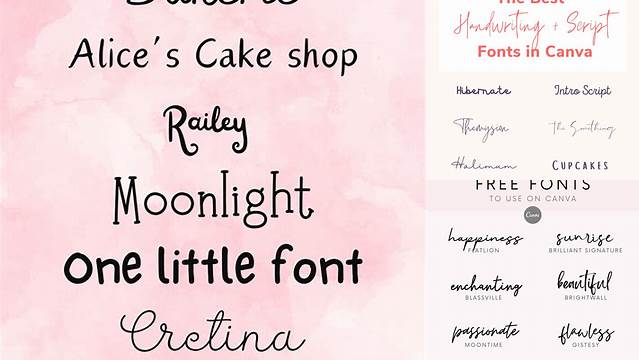
Cute Handwriting Fonts On Canva: A Complete Guide
Hey guys! Ever wanted to add a personal touch to your Canva designs? Using cute handwriting fonts is the way to go! They bring warmth, authenticity, and a dash of fun to any project. Whether you're crafting social media posts, designing invitations, or creating stunning presentations, the right font can make all the difference. In this guide, we're diving deep into the world of cute handwriting fonts on Canva, exploring everything from the best options available to how to effectively use them in your designs. Get ready to transform your creations with these delightful fonts!
1. The Allure of Handwriting Fonts
Handwriting fonts have this amazing ability to make things feel more personal and relatable. Unlike standard, formal fonts, they mimic the natural flow and imperfections of human handwriting. This gives your designs a unique charm that can really grab people's attention. When you use cute handwriting fonts, you're not just adding text; you're adding character and emotion. This is why they're perfect for projects where you want to connect with your audience on a more intimate level. Think about greeting cards, heartfelt notes, or even branding materials that aim to convey warmth and approachability. The right handwriting font can turn a simple message into something truly special. Plus, in a digital world dominated by sleek, uniform designs, a touch of handwritten style can help you stand out from the crowd. So, if you're looking to inject some personality into your Canva projects, exploring the world of handwriting fonts is definitely the way to go!
2. Top 5 Cute Handwriting Fonts on Canva
Canva has a treasure trove of cute handwriting fonts, but let's highlight five standouts that are perfect for various projects. First up is 'Amatic SC', a simple yet charming font that works wonders for headings and short texts. Its slightly condensed form keeps things neat while retaining a playful vibe. Next, we have 'Permanent Marker', a bold and energetic font that's ideal for making strong statements. It's like scribbling with a marker, giving your designs an edgy, casual feel. Then there's 'Patrick Hand', a readable and friendly font that's great for longer paragraphs. Its clear, slightly rounded letters make it easy on the eyes, ensuring your message gets across without any strain. Don't forget 'Coming Soon', a quirky and whimsical font that's perfect for adding a touch of fun to your designs. Its uneven baseline and playful curves make it stand out, adding a unique twist to your text. Lastly, we have 'Journal', a classic and elegant font that mimics the look of handwritten notes. It's perfect for creating a sense of nostalgia and intimacy, making your designs feel more personal and heartfelt. These five fonts are just the tip of the iceberg, but they're a great starting point for exploring the diverse range of cute handwriting fonts on Canva.
3. How to Find Handwriting Fonts on Canva
4. Combining Handwriting Fonts with Other Fonts
One of the coolest things you can do with cute handwriting fonts is to pair them with other font styles. This can add depth and visual interest to your designs. A good rule of thumb is to combine a handwriting font with a simpler, more readable font. For example, you could use a handwriting font for your headings and a sans-serif font like Arial or Helvetica for your body text. This creates a nice contrast that makes your design pop. Another approach is to use a handwriting font for emphasis, such as highlighting key words or phrases within a paragraph. This can draw attention to important information and make your message more impactful. When choosing fonts to pair with handwriting fonts, consider the overall tone and style of your design. If you're going for a playful and whimsical look, you might choose a quirky sans-serif font to complement your handwriting font. If you're aiming for a more elegant and sophisticated feel, a classic serif font like Times New Roman could be a better choice. The key is to experiment and see what works best for your specific project. Don't be afraid to mix and match different font styles until you find the perfect combination. With a little creativity, you can create stunning designs that showcase the unique charm of handwriting fonts.
5. Using Handwriting Fonts for Branding
Using cute handwriting fonts for branding can give your business a unique and personal touch. Think about it: in a world full of corporate logos and sterile designs, a handwritten font can make your brand feel more approachable and relatable. This is especially effective for businesses that want to convey a sense of warmth, creativity, or authenticity. For example, if you're a handmade crafts business, using a handwriting font in your logo and marketing materials can highlight the personal care and attention that goes into your products. Similarly, if you're a creative consultant or life coach, a handwritten font can help you build trust and rapport with your clients. When choosing a handwriting font for your brand, consider your target audience and the message you want to convey. A playful and whimsical font might be perfect for a children's clothing brand, while a more elegant and sophisticated font could be a better fit for a luxury skincare line. It's also important to ensure that your chosen font is readable and legible, especially in smaller sizes. After all, you want your brand name to be easily recognizable, no matter where it appears. So, if you're looking to add a personal touch to your brand, consider the power of handwriting fonts. They can help you stand out from the crowd and create a lasting impression on your audience.